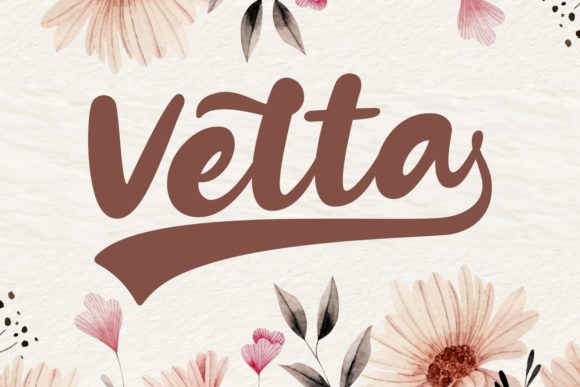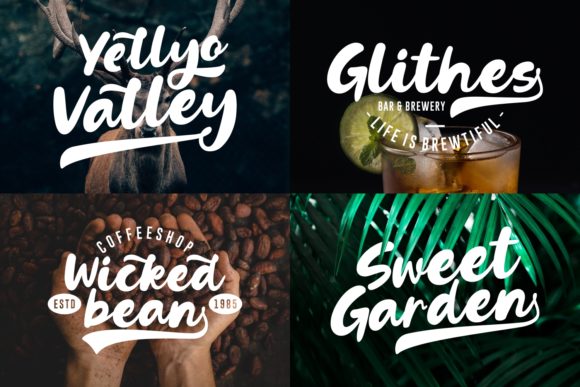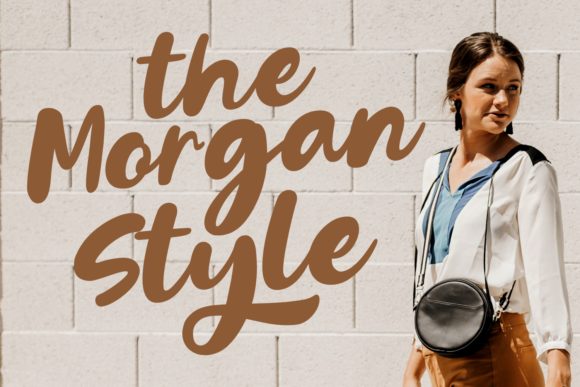
HomeScript FontsVelta Font Script Fonts Velta Font FacebookXPinterestWhatsApp Velta Font Poster 2 Velta Font Poster 3 About Velta Font Velta is a strong handwritten font. It comes with alternates swashes. Get inspired by its unique style! DOWNLOAD NOW People also explored Karviet Font Logomotion Nagasama Font Scallop Font Devis Font Dreamily Font Botanic Floral Garden Font Mueband Happy Thanksgiving Font 333 0 TagsVelta Font Previous articleSerenatta FontNext articleHerdsman Font LEAVE A REPLY Cancel reply Comment: Please enter your comment! Name:* Please enter your name here Email:* You have entered an incorrect email address! Please enter your email address here Website: Save my name, email, and website in this browser for the next time I comment. Personal Use Free Brittish State Personal Use Free Read more about this font Grillin Personal Use Free Read more about this font Yukarimobile Personal Use Free Read more about this font Cranberry Gin Personal Use Free Read more about this font BLOG Top 7 Google Fonts Alternatives for Faster and Privacy-Friendly Web Design (2025) Top 7 Google Fonts Alternatives for Faster and Privacy-Friendly Web Design (2025) When it comes to web typography, Google Fonts has long been the go-to... Free vs Paid Fonts: Why Investing in Premium Fonts Is Worth It Fonts That Capture the Spirit of New York City The 10 Best Handwriting Fonts to Add Personality to Your Designs